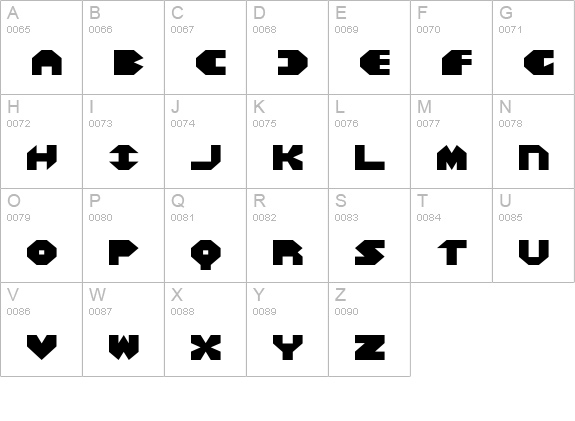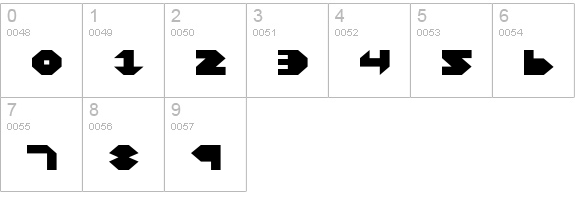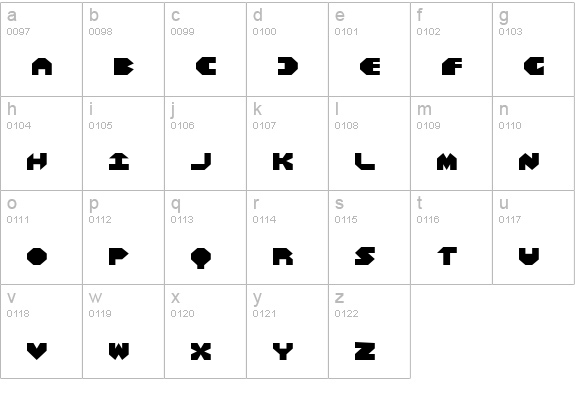
Bal-Astaral Expanded Font Details
Bal-Astaral Expanded is a distinctive, extended-width variant in the Bal typeface family \xE2\x80\x94 well suited to design and typography projects.
Bal-Astaral Expanded font is a captivating and versatile typeface that is perfect for adding a touch of elegance and sophistication to your design projects. With its unique and intricate letterforms, this font exudes a sense of modernity and creativity. The expanded version of Bal-Astaral offers a wider and more eye-catching appearance, making it ideal for headlines, titles, and other prominent text elements. What sets Bal-Astaral Expanded font apart is not only its striking design but also its accessibility. This font is available for free download at FontsMarket.com, allowing designers and creatives to effortlessly incorporate it into their work without any cost. Whether you're working on a branding project, website design, or any other creative endeavor, Bal-Astaral Expanded font is sure to make a lasting impression with its unique style and visual impact. Download it today and elevate your designs with this stunning typeface.